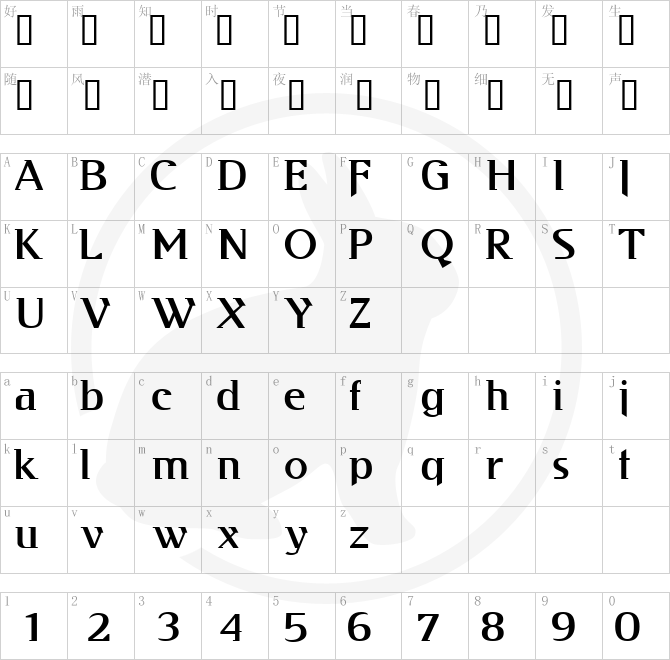
• Font Name:Kabos Gyula
Kabos-Gyula.ttf is a very beautiful artistic font, Kabos-Gyula.ttf is widely used in the design and printing of various books and pictures,Kabos-Gyula.ttf has a strong visual impact,Kabos-Gyula.ttf is a commonly used font in newspapers, magazines and books, and is used in posters, e-commerce Poster design, store design, logo design, font design and other fields.Kabos-Gyula.